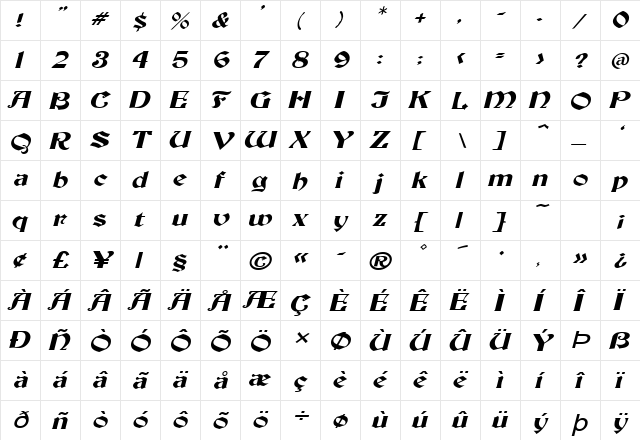
Brandywine-Extended Italic
Design Context for Brandywine-Extended Typeface
Brandywine-Extended is a composed and adaptable typeface that performs quietly and consistently across a wide range of design contexts. The slanted form adds forward momentum and visual energy.